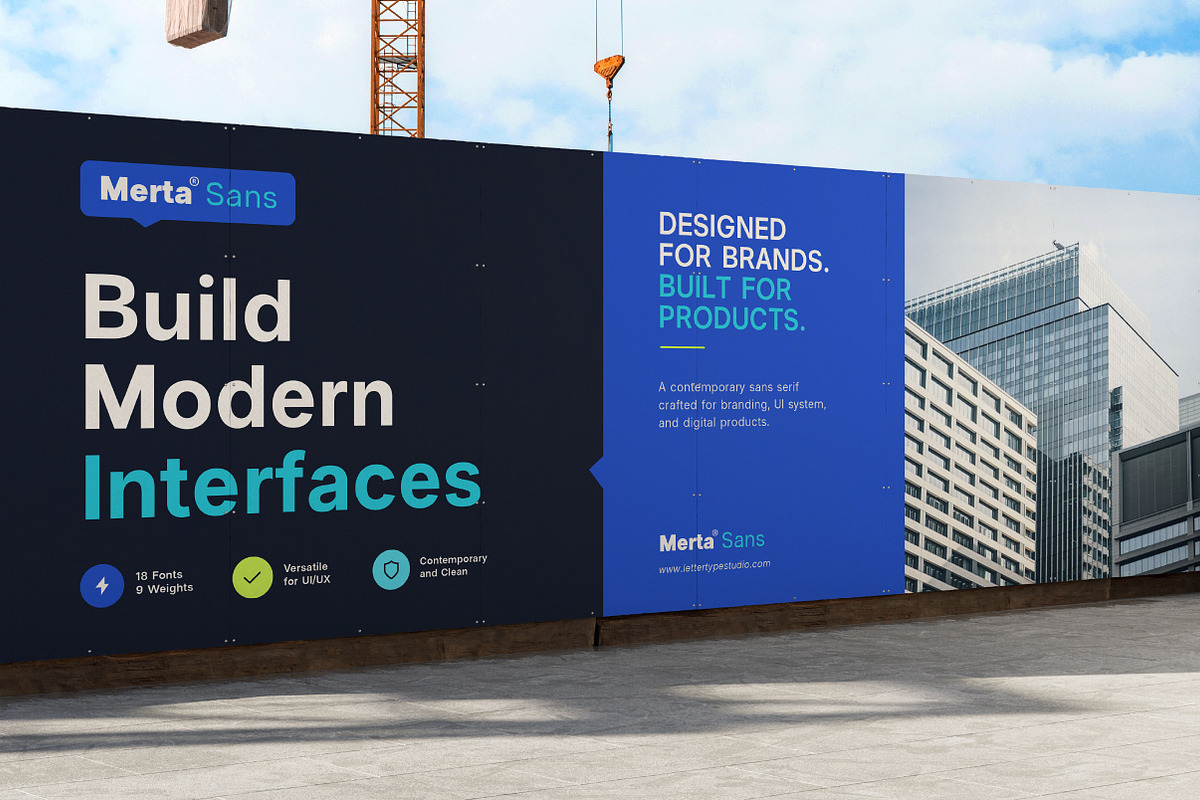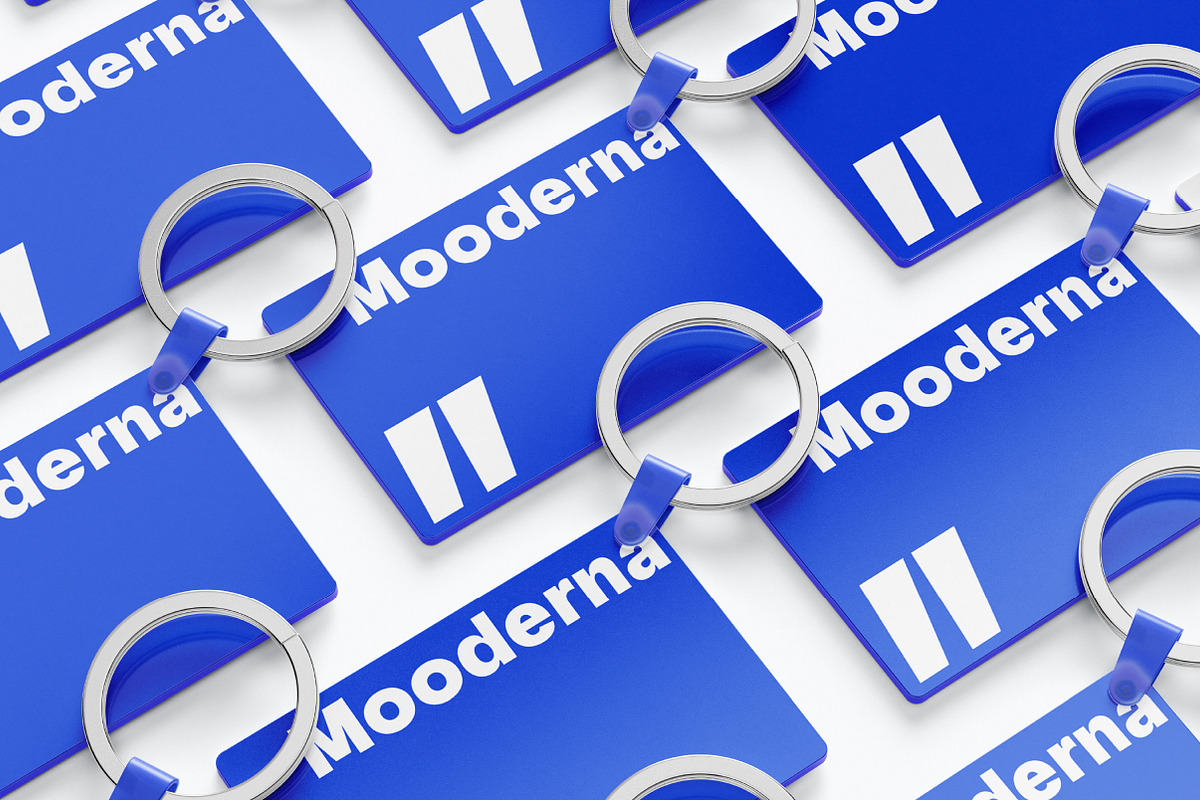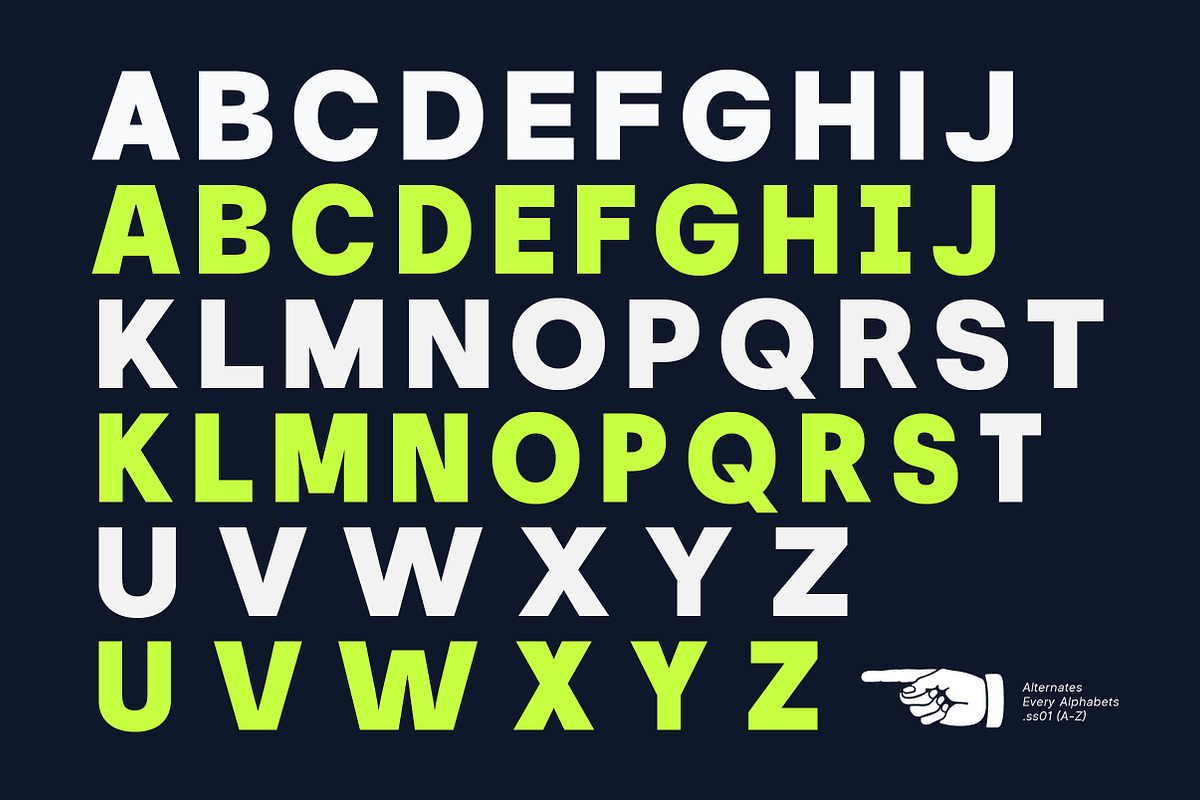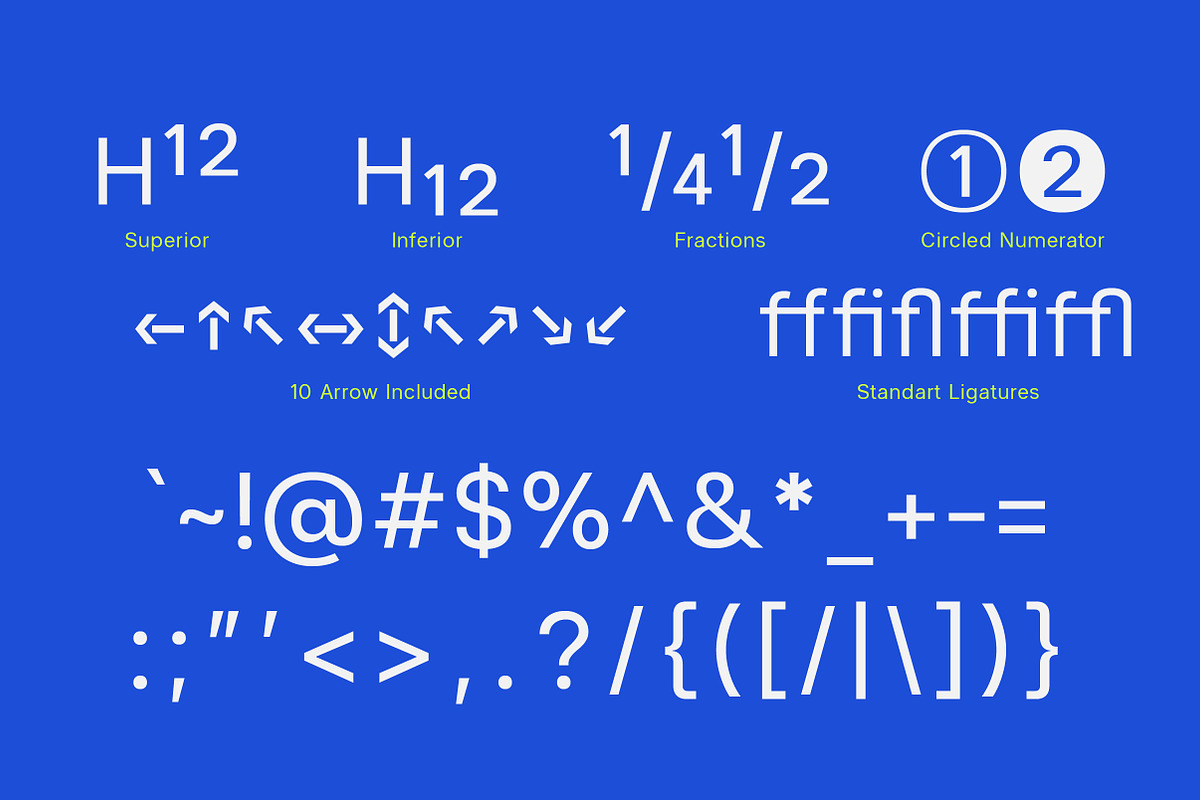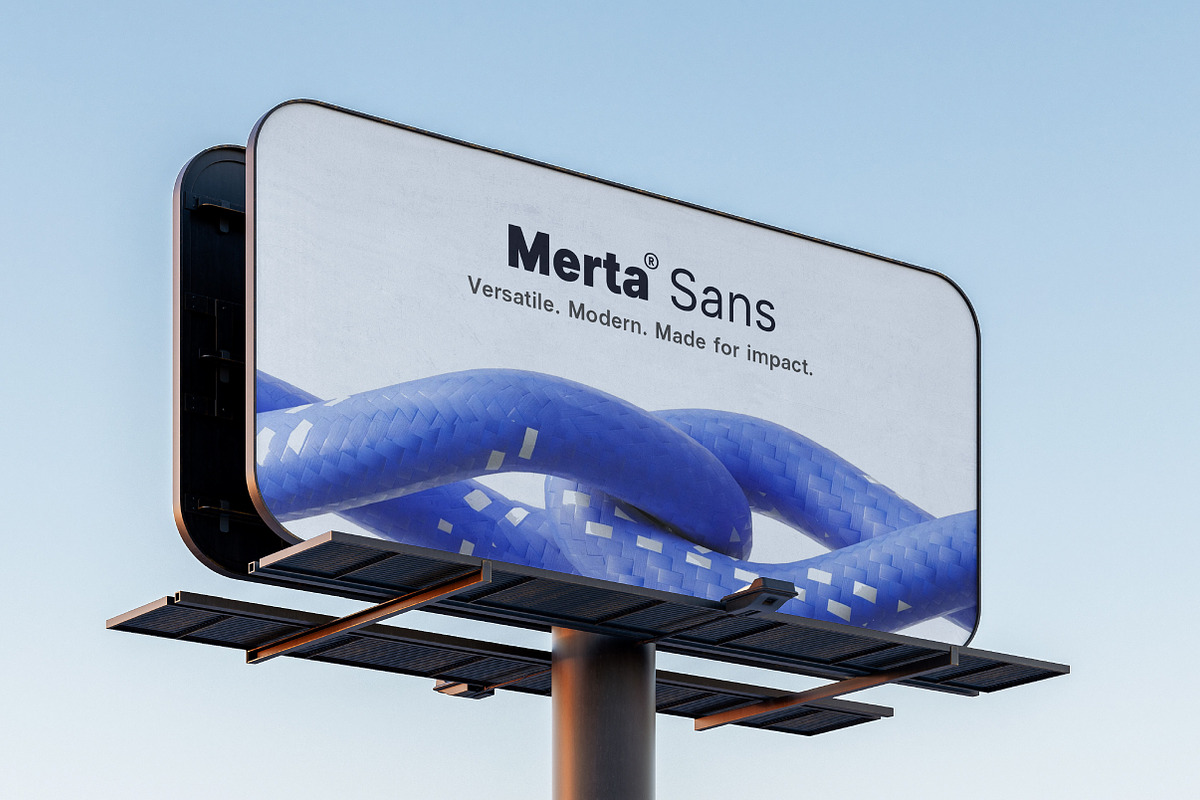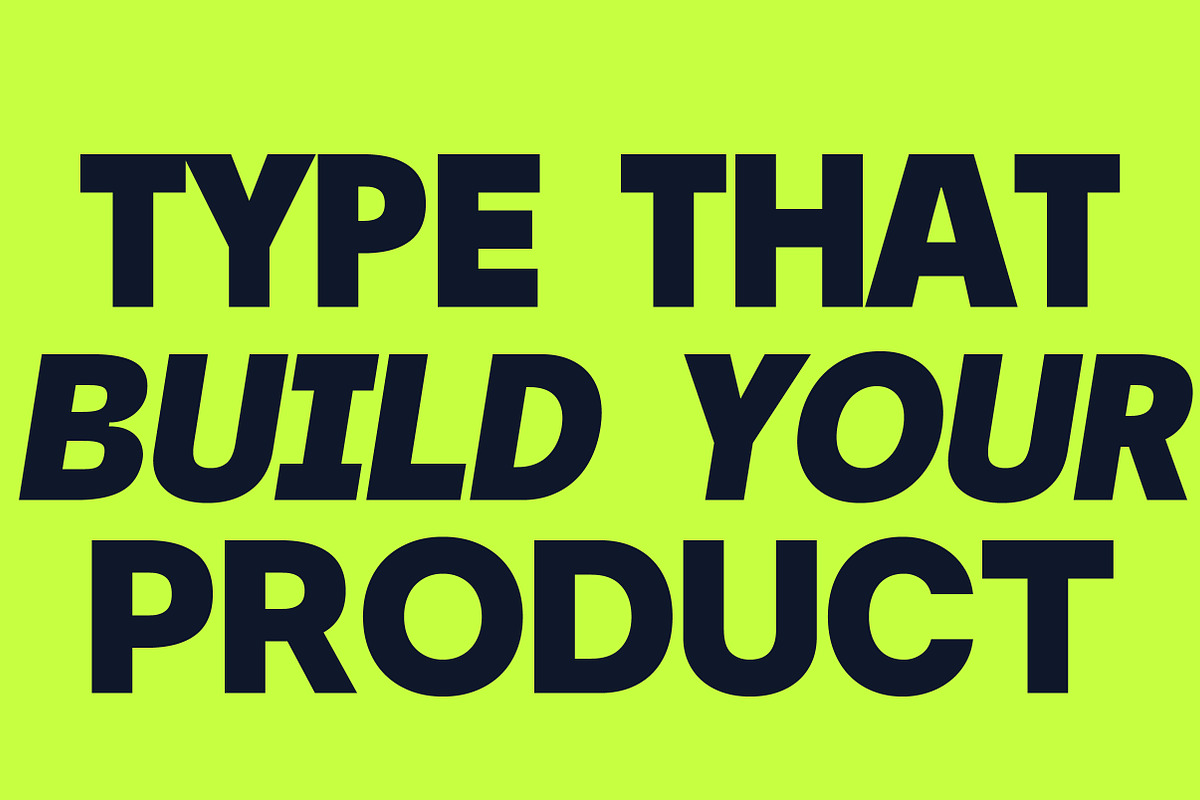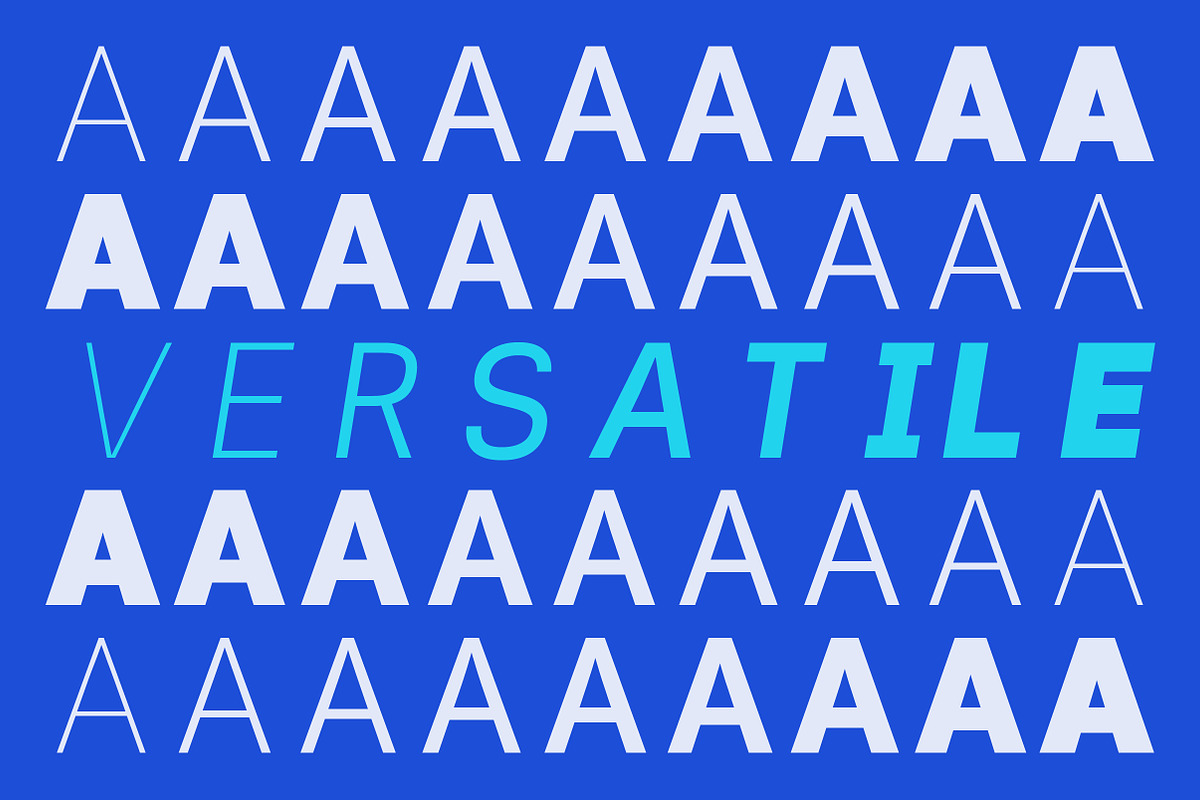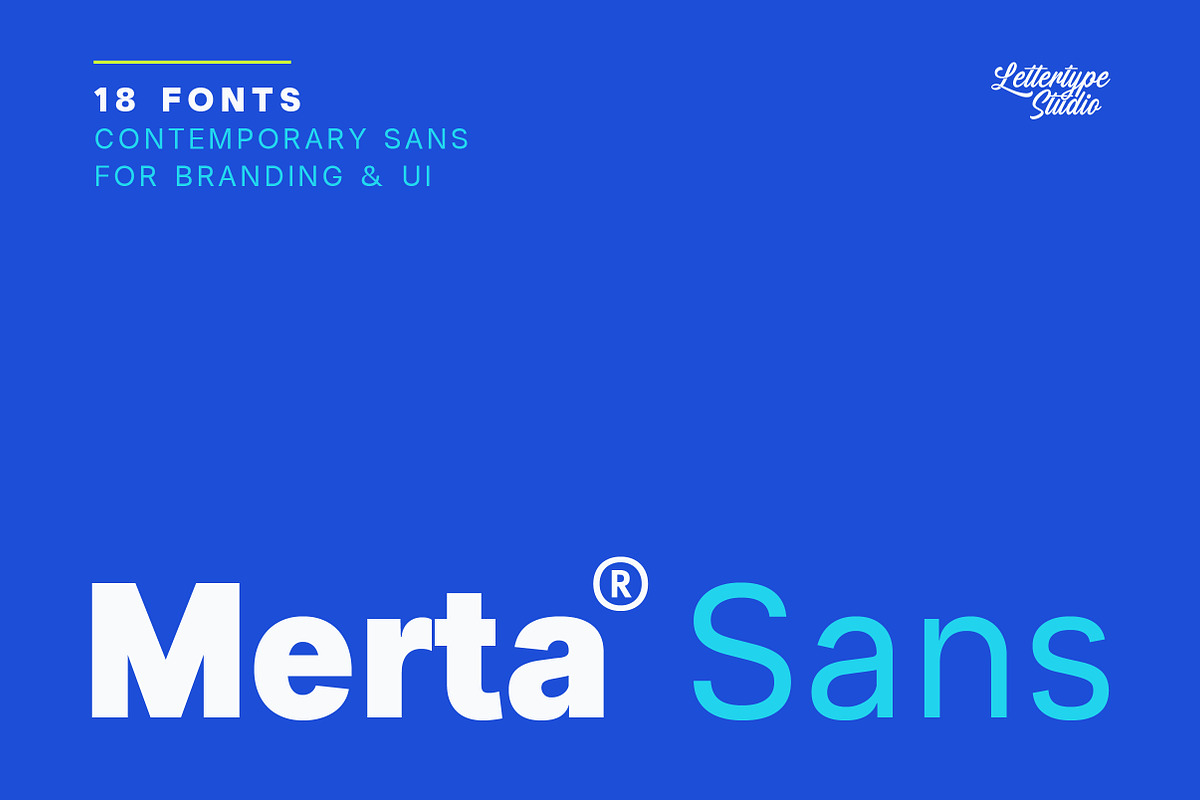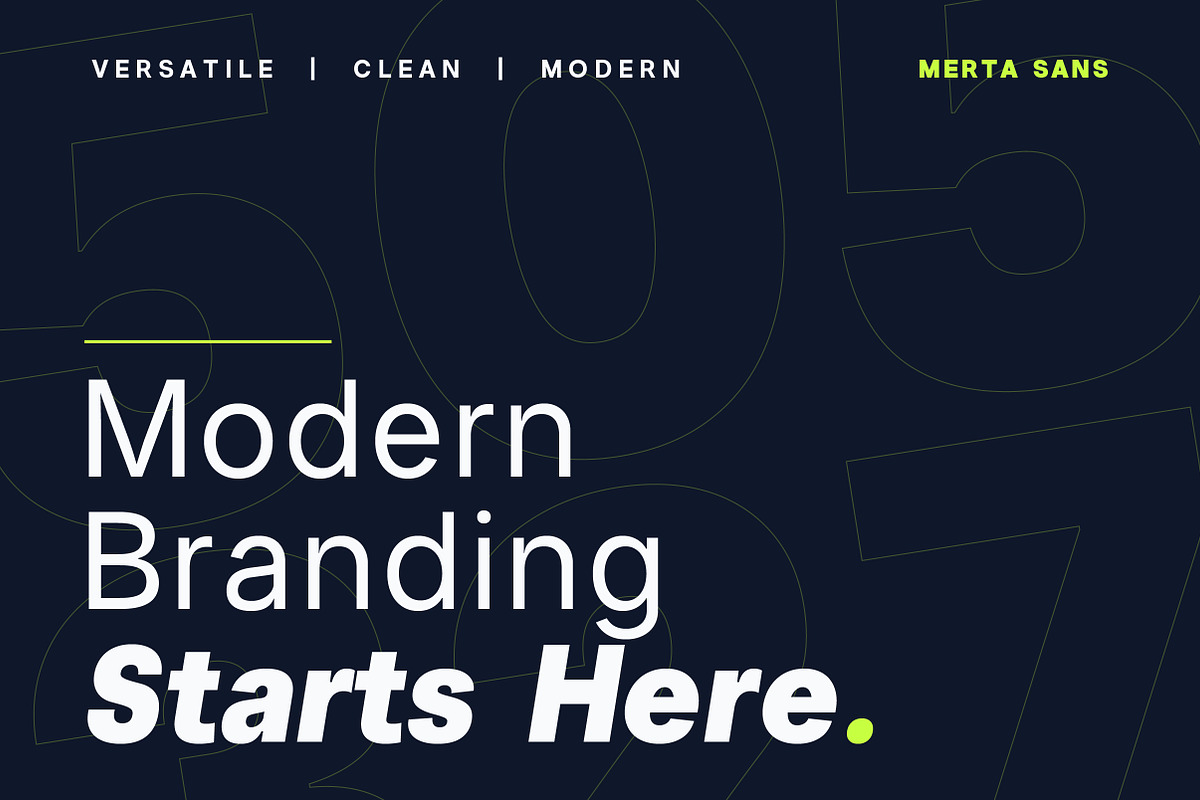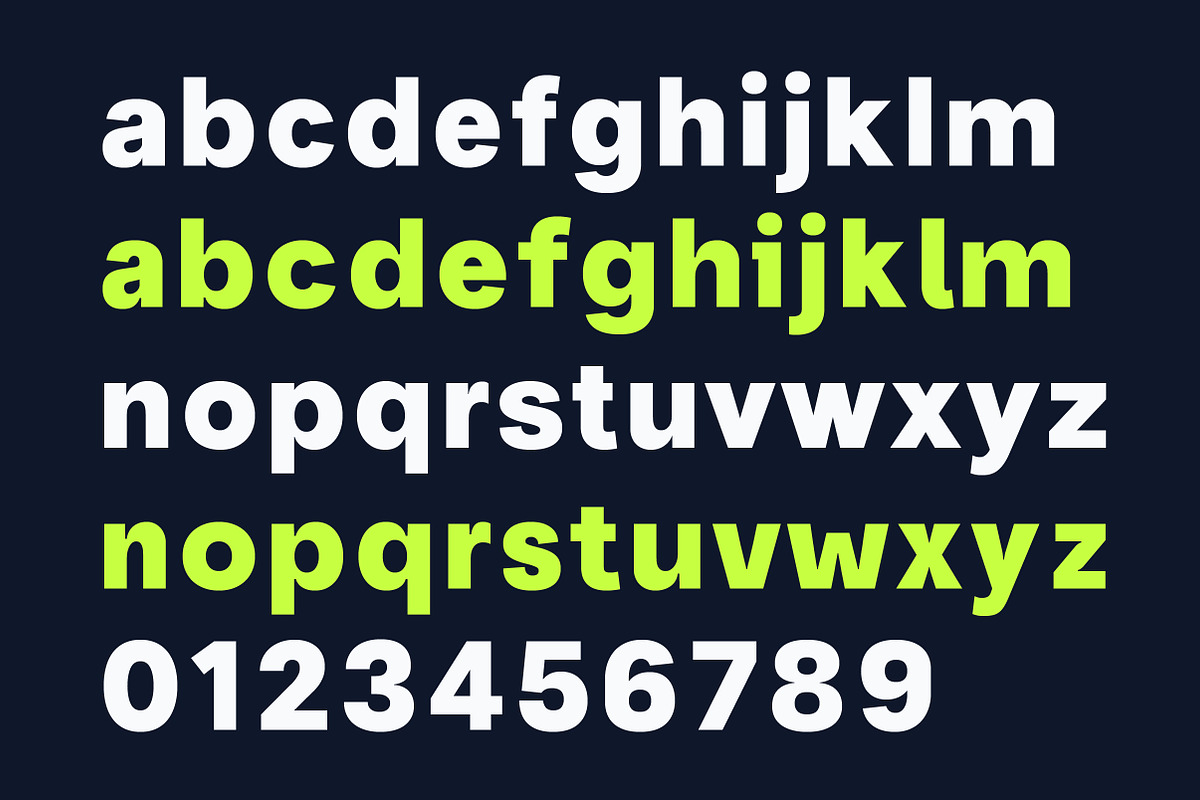
Merta Sans is a contemporary sans serif font family crafted for modern branding and digital interfaces. Designed with clean proportions, refined spacing, and subtle warmth, it delivers clarity without feeling cold or mechanical.
From startup branding and product design to websites, presentations, and marketing campaigns, Merta Sans helps you create polished, scalable, and professional visual systems across both digital and print environments.
Merta Sans Features:
18 Styles
Upright & Italic
554 Glyphs Total
270+ Languages Support
Startup Branding
UI Design
SaaS Platforms
Corporate Identity
\- Presentation Design